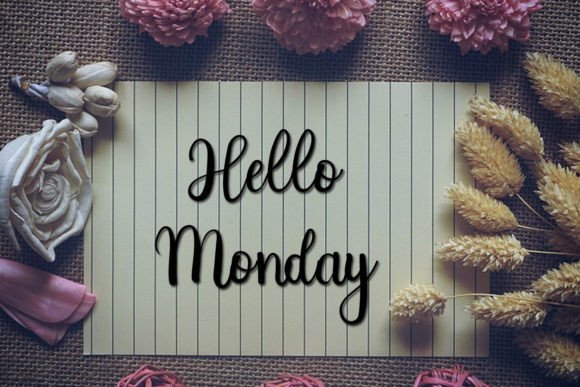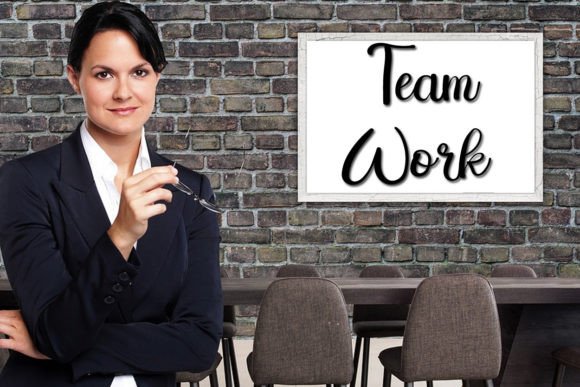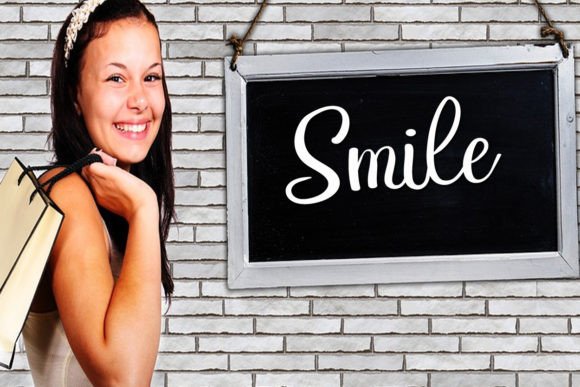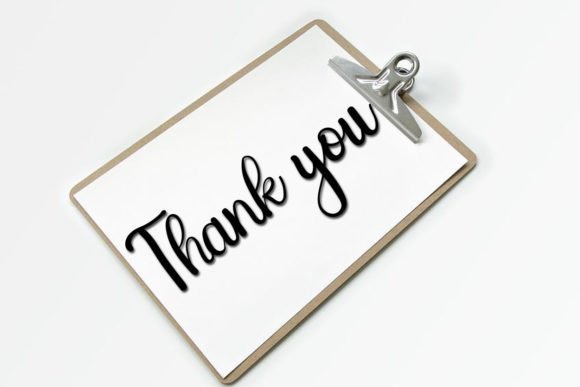
Introducing Boho Font: Elevate Your Designs with a Fresh and Beautiful Handwritten Style
Are you tired of using the same old fonts in your design projects? Look no further! Boho font is here to revolutionize the way you approach typography. This fresh and beautiful handwritten font is perfect for designers and crafters looking to add a touch of elegance and sophistication to their work. With Boho font, you can confidently take your projects to the next level and be astounded by the outcome generated!
What is Boho Font?
Boho font is a stunning handwritten font that exudes a sense of bohemian chic. Its unique and flowing script is perfect for creating visually appealing designs that capture the essence of a free-spirited and artistic vibe. Whether you’re working on a branding project, a wedding invitation, or a DIY craft, Boho font is sure to add a touch of whimsy and charm.
Key Features of Boho Font
• Handwritten with love: Boho font is carefully crafted with a personal touch, giving it a genuine and authentic feel.
• Fresh and modern: This font is perfect for designers looking for a contemporary and stylish script that will make their work stand out.
• Highly versatile: Boho font can be used for a wide range of projects, from digital designs to print materials.
• Easy to read: Despite its artistic nature, Boho font is surprisingly legible, making it perfect for body text and headlines.
How to Use Boho Font in Your Designs
Adding Boho font to your design projects is incredibly easy. Here are a few ways you can incorporate it into your work:
1. Branding and logos: Use Boho font to create a unique and memorable brand identity that reflects your company’s personality.
2. Wedding and event invitations: Add a touch of elegance and sophistication to your wedding or event invitations with Boho font.
3. DIY crafts and scrapbooking: Boho font is perfect for crafters and scrapbookers looking to add a personal touch to their projects.
4. Digital designs: Use Boho font in your social media graphics, blog posts, and website designs to add a touch of whimsy and charm.
Tips and Tricks for Working with Boho Font
Here are a few tips to help you get the most out of Boho font:
• Experiment with colors: Boho font looks stunning in a variety of colors, so don’t be afraid to experiment and find the perfect hue for your design.
• Mix and match: Combine Boho font with other fonts and graphics to create a unique and visually appealing design.
• Pay attention to spacing: Make sure to adjust the spacing between letters and words to create a clean and easy-to-read design.
Font Name Boho Font
Author ABBAsalam
In conclusion, Boho font is a game-changer for designers and crafters looking to elevate their work with a fresh and beautiful handwritten font. With its unique and flowing script, Boho font is perfect for adding a touch of elegance and sophistication to a wide range of projects. So why wait? Add Boho font to your design arsenal today and be astounded by the outcome generated!